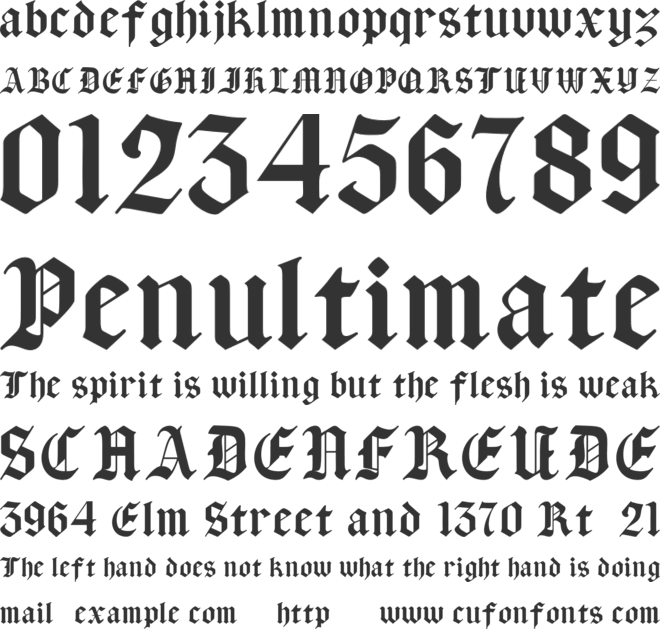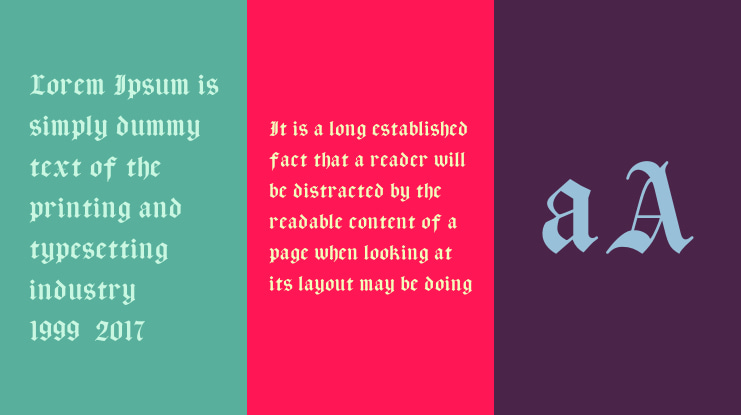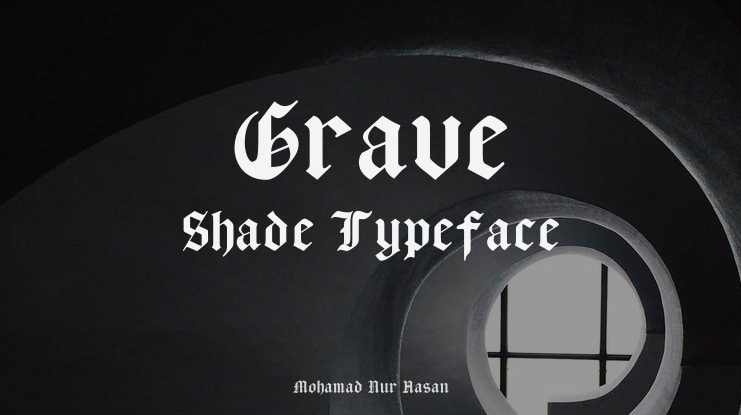
Grave Shade Font
Grave Shade is a gothic blackletter typeface with a brutal, medieval-inspired style—perfect for dark themes, horror designs, heavy metal artwork, and more. This demo version gives you a preview of its strong visual character, ideal for personal projects and inspiration.
Full font includes uppercase, lowercase, numbers, punctuation, and alternates